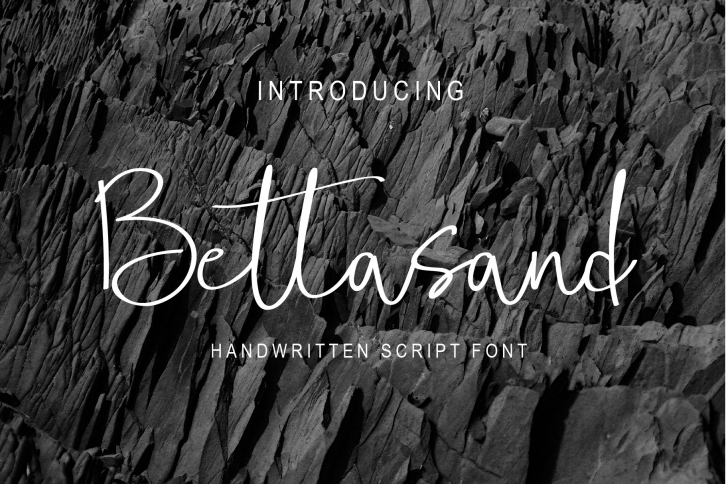
Bettasand Handwritten Script is a trendy and unique font with an authentic style. It was designed by Balevgraph Studio and it's a great choice for creative people who need such a font. It was released on December 8, 2020 and the file size is 15.1 MB. Bettasand Handwritten Script will add an organic vibe to any design idea!